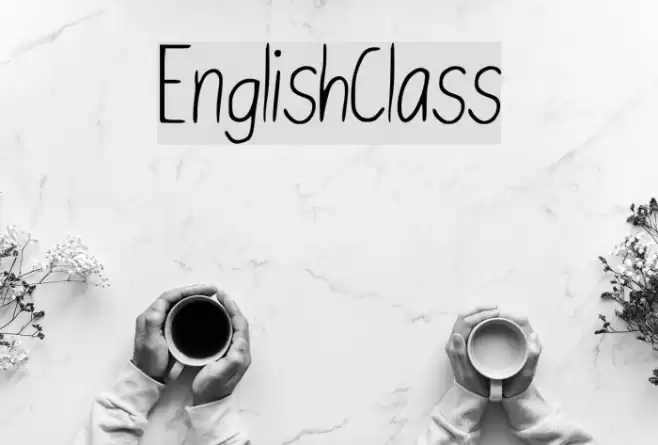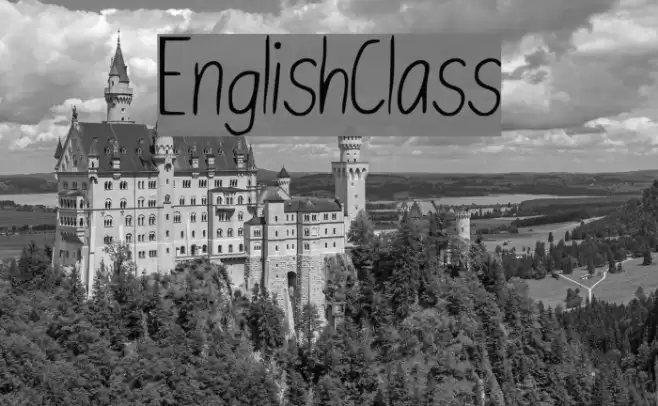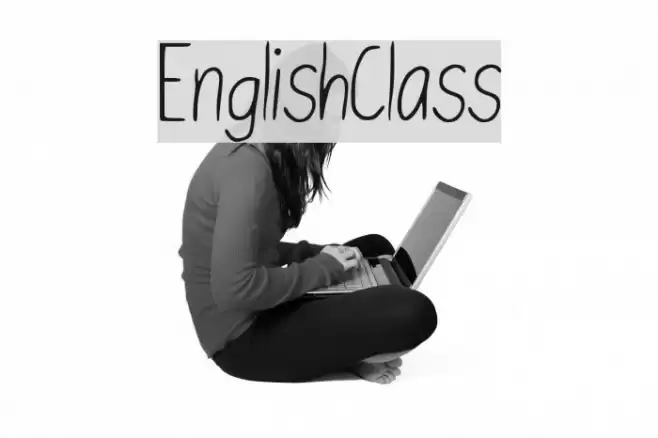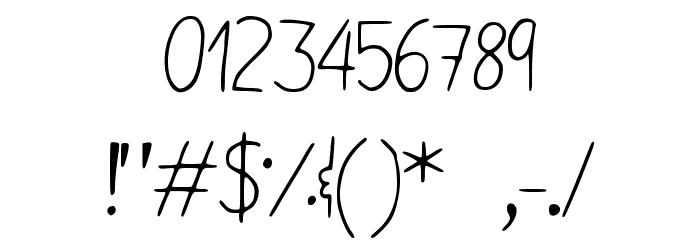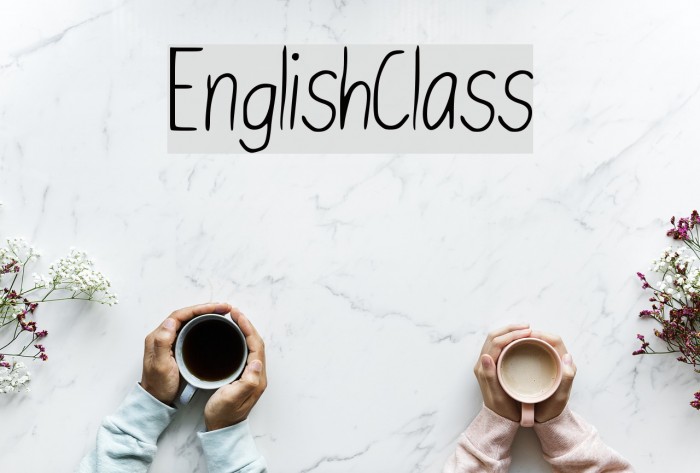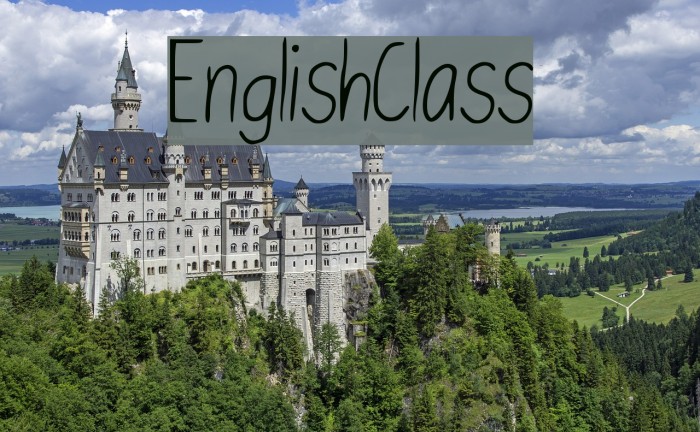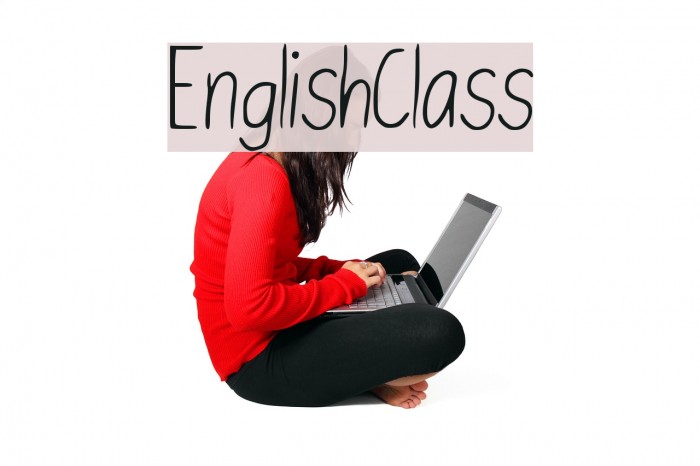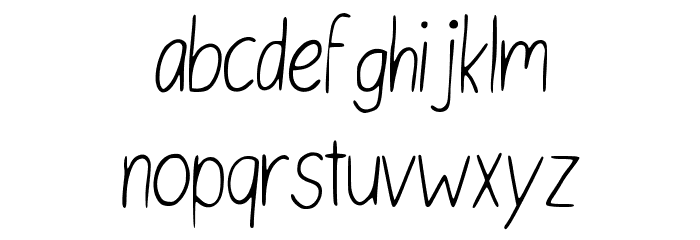
English_Class_ Font
English_Class_ Description
This font features a playful and casual handwritten style, characterized by its smooth, flowing lines and slightly irregular letterforms. The uppercase letters are tall and narrow, while the lowercase letters maintain a consistent height, creating a harmonious balance. The numerals are clear and easy to read, matching the overall aesthetic of the alphabet. Special characters are included, maintaining the same whimsical style. This font exudes a friendly and approachable vibe, making it suitable for a variety of creative projects.
A playful, casual handwritten font with smooth, flowing lines from Uncategorized fonts.
- Proposed Projects: Ideal for greeting cards, children's books, casual invitations, and playful branding.
- Overall Style: Casual
- Use Case: Headlines, Logos, Informal Text